In 2026, modern website typography is all about clarity, brand mood, and fast readability on mobile. The best approach is to use a simple system: one strong headline font (“personality”) and one clean body font (“workhorse”), with an optional accent font used sparingly. Font bundles and collections save time because they include pre-matched styles that keep branding consistent across web, social, and print. Platforms like Creative Fabrica are popular for finding modern-style font sets, but it’s always important to check licensing, especially for commercial and web embedding use.
15 Font Pairing Sets for Website Headlines (2026)
These are not random pairs. Each set is designed for a specific vibe and type of website.
1. Revolin Font: Modern Geometric Sans Serif
2. Editorial Font: Modern Display Serif for Branding & Logos
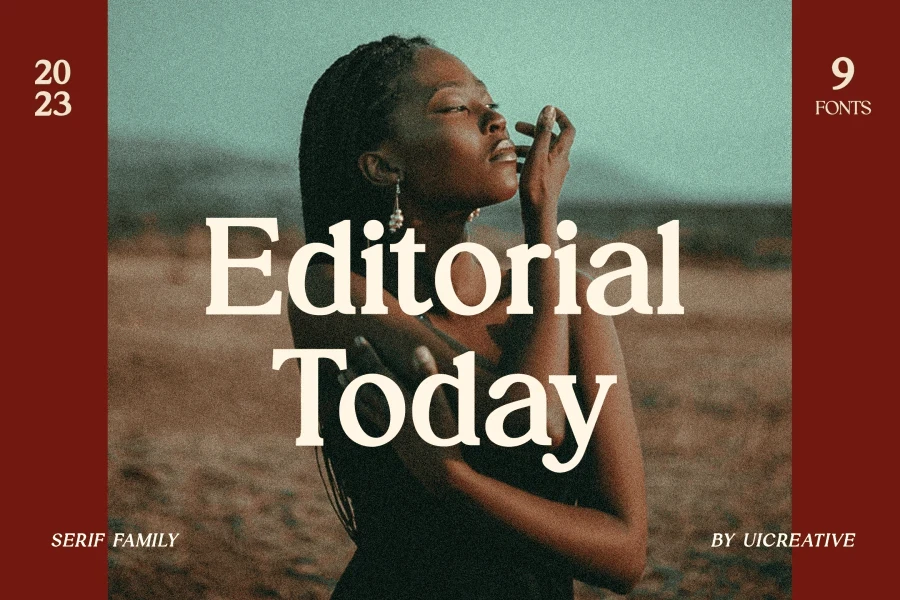
3. Lusio Soft Font: Rounded Sans Serif Family
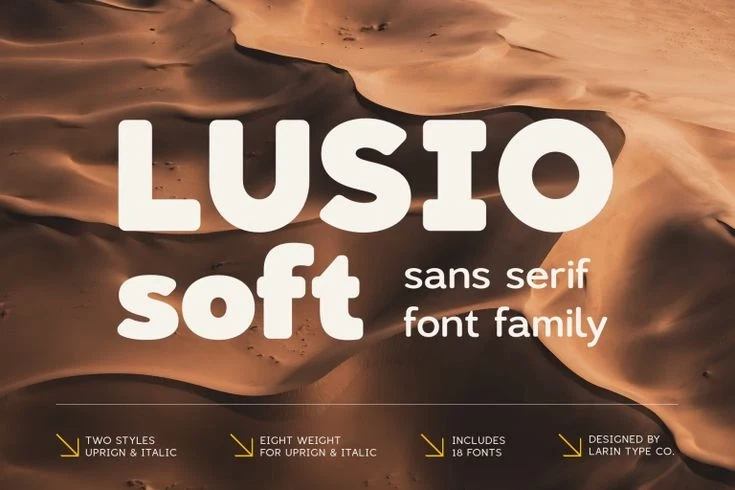
4. Modestic Display Bold Font
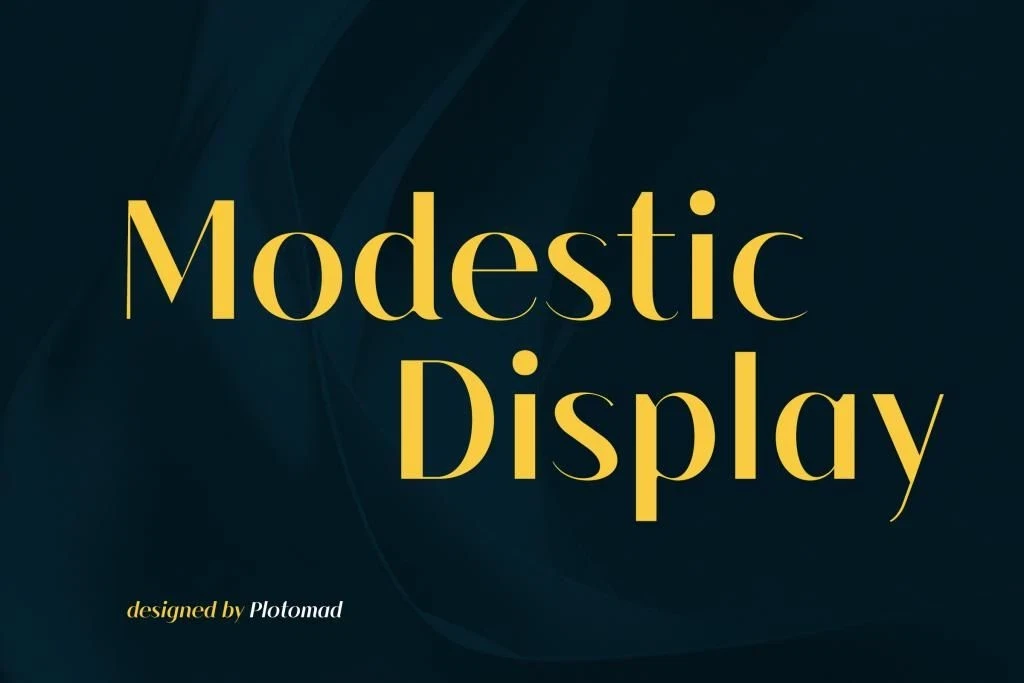
5. Abind Font – Elegant Serif for Logos, Branding & Packaging
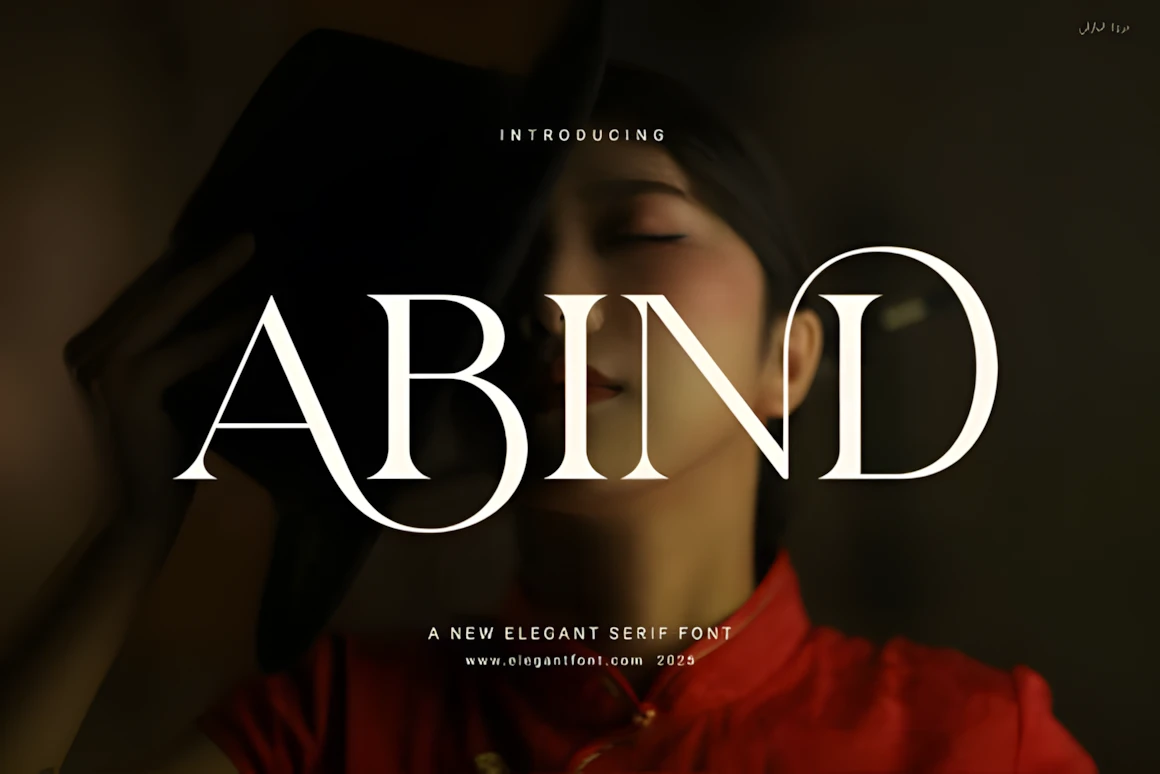
6. Goodly Font – Friendly Modern Rounded Sans Serif Typeface
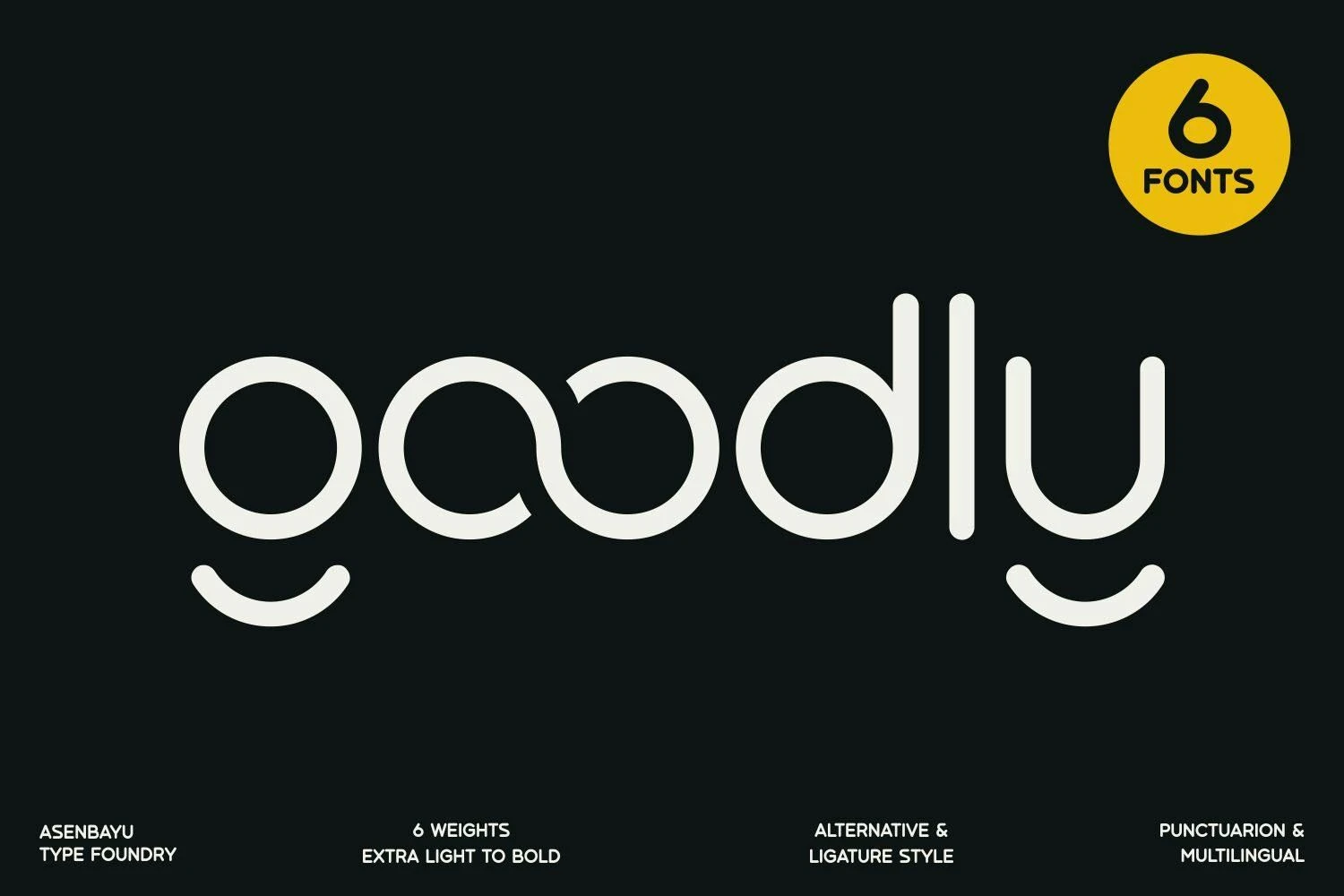
7. Amore Dreaming Font Duo – Elegant Script & Sans Serif Typeface
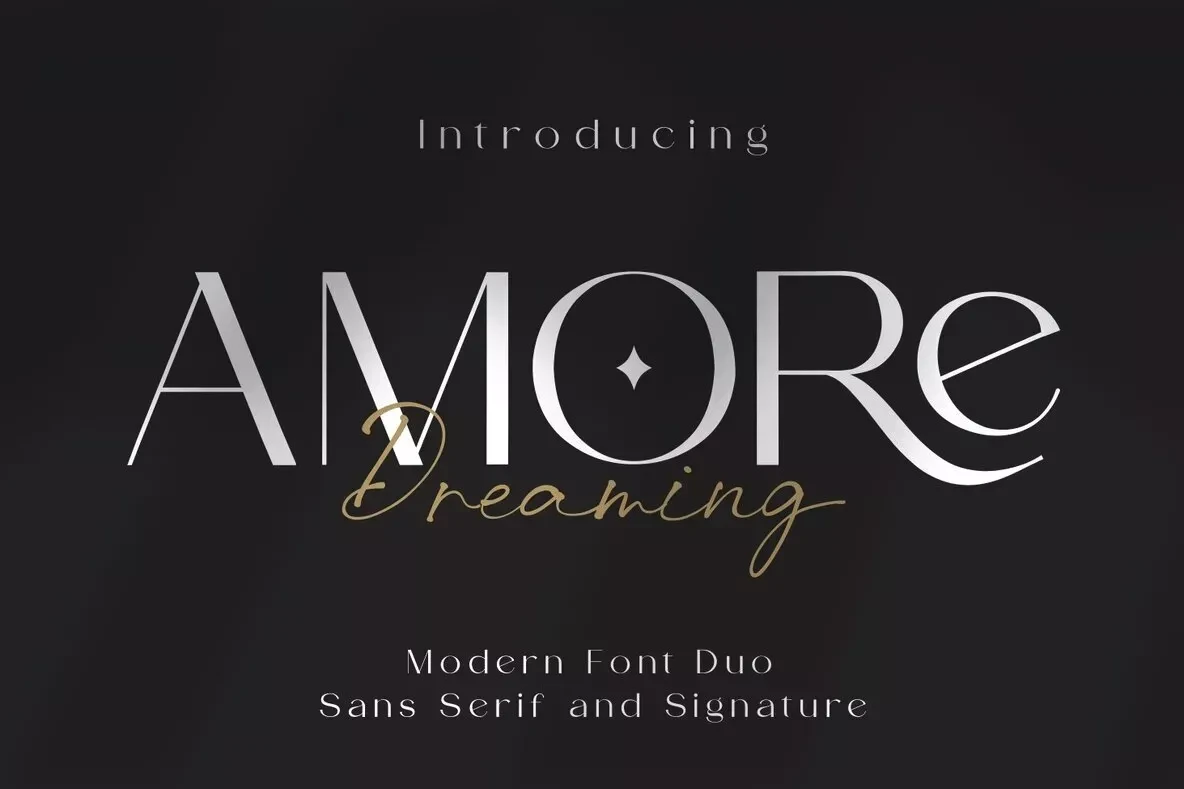
8. Melbourne Font – Modern Geometric Sans Serif Family (12 Styles)
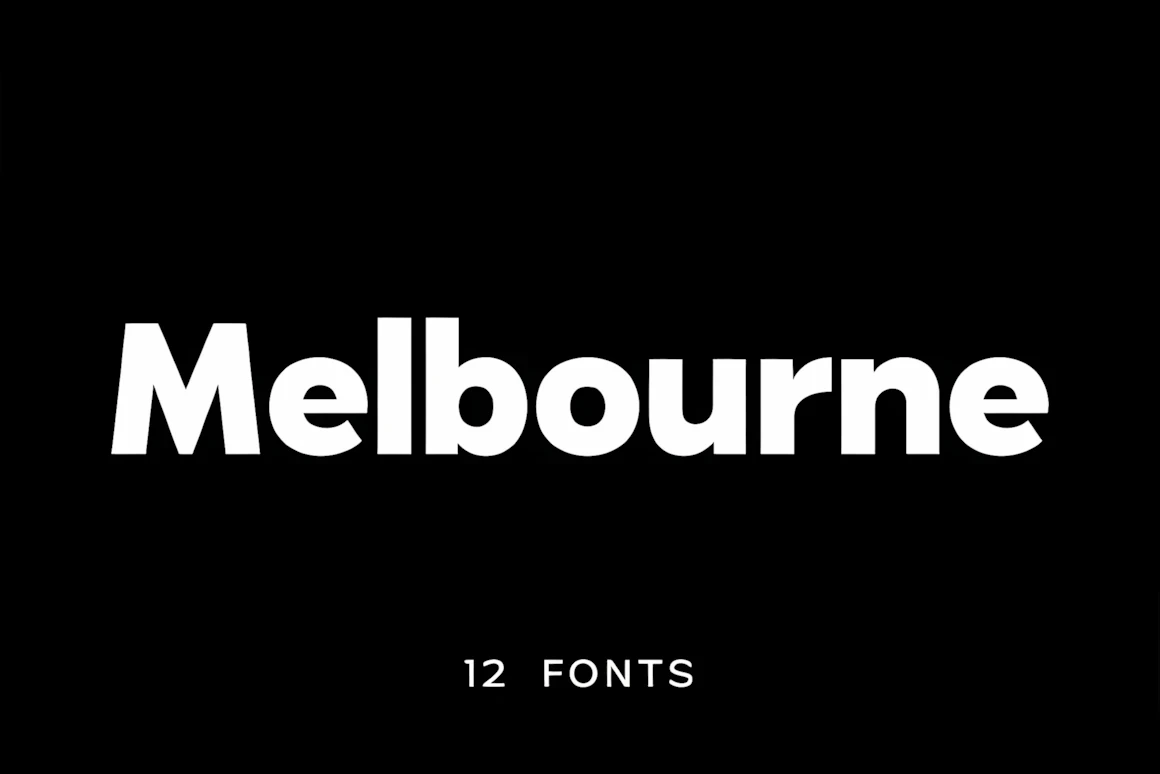
9. Black Mollta Font – High-Contrast Serif Typeface (Regular + Oblique)
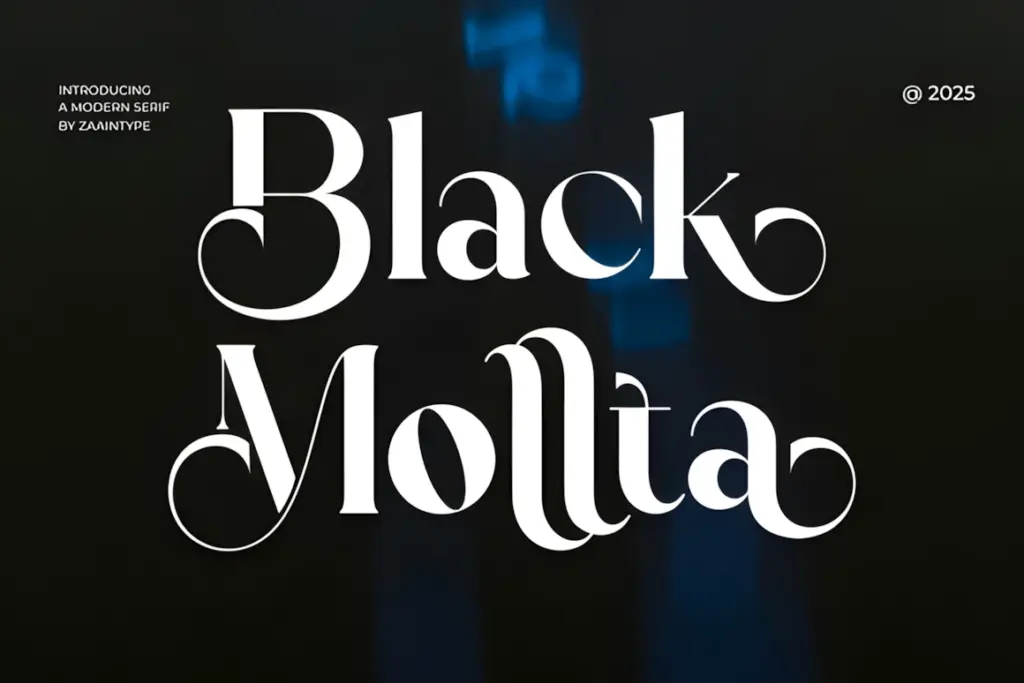
10. Edigo Font – Modern Retro Display Typeface for Logos, Headlines & Posters
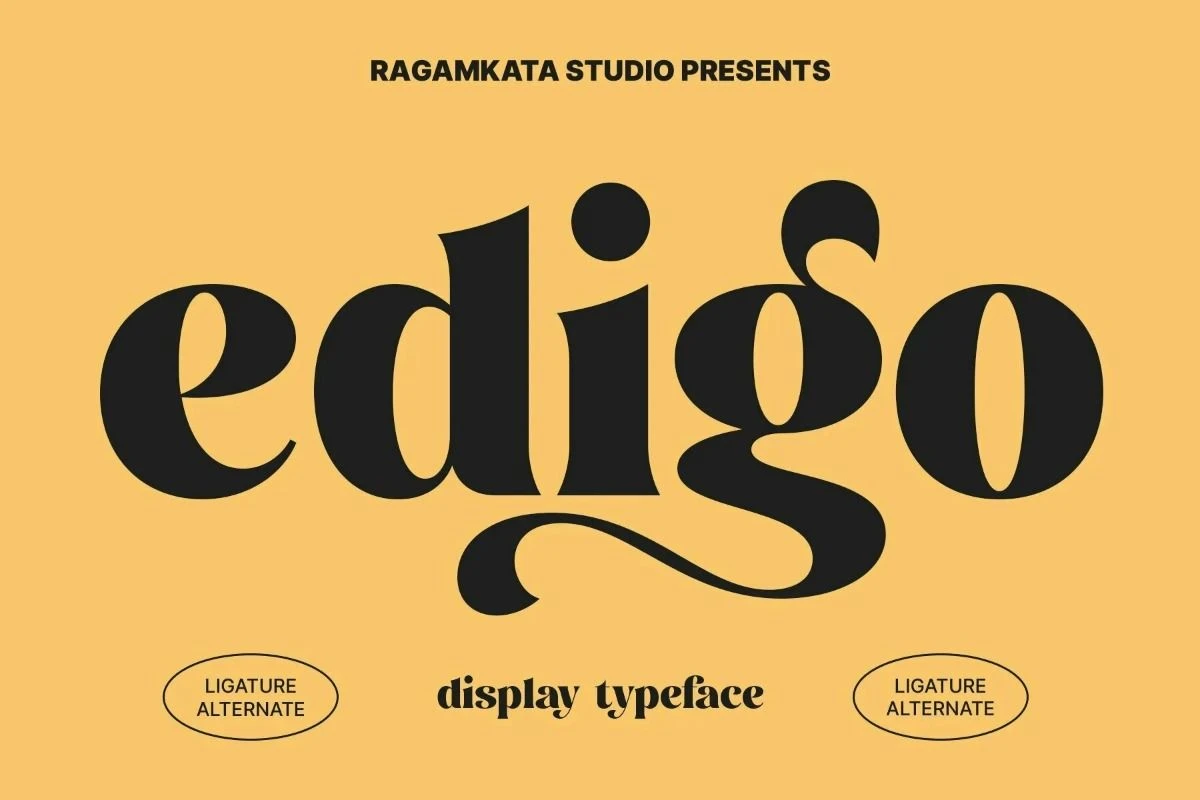
11. Scandya Script Font – Brush Handwritten Typeface with Alternates & Ligatures
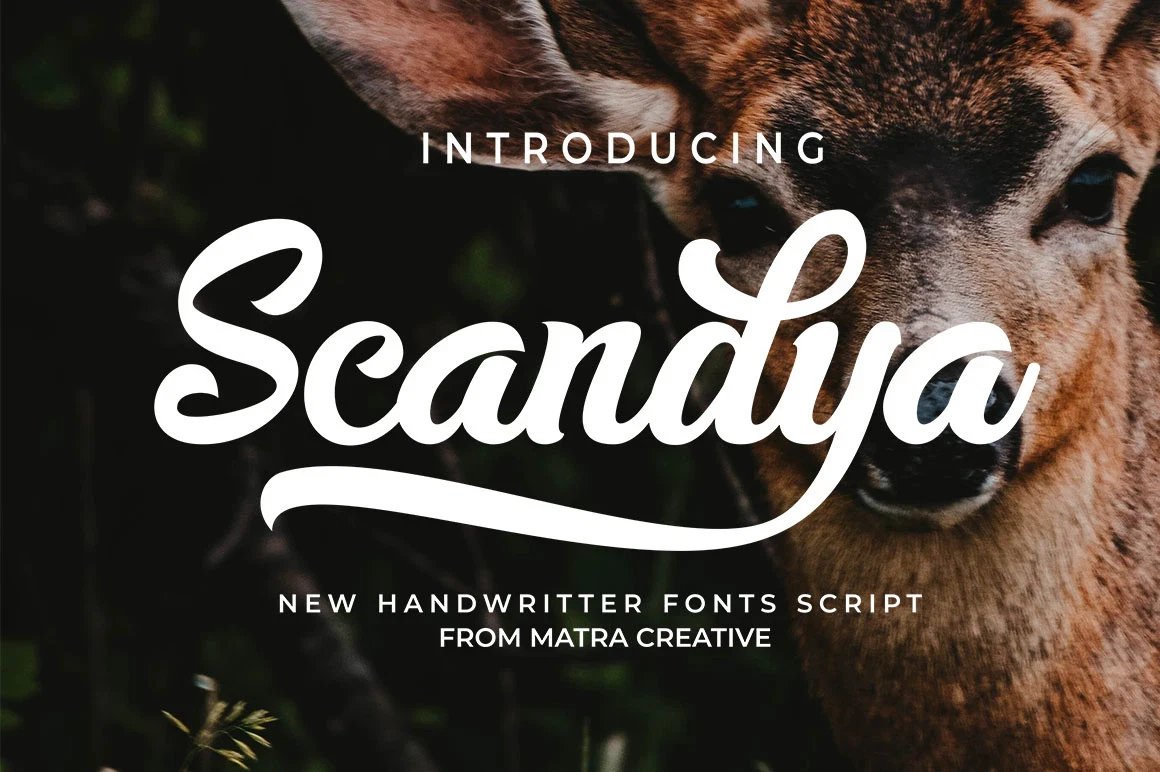
12. Brefid Font – Luxury Elegant Display Serif Typeface with Ligatures & Alternates
13. Informe Font – Modern Monospaced Sans Serif Typeface for UI, Coding & Labels
14. Sunday Fatso Font – Chunky Rounded Serif Display Typeface (PUA + Alternates)
15. Grisy & Rocky Font – Condensed Bold Sans Serif Urban Display Typeface
Before You Choose Fonts: 3 Things That Save You Hours
1) Decide what your website headline needs to do
A headline font has a job: it grabs attention and sets the brand tone. Ask:
- Should it feel premium or playful?
- Should it feel bold (high contrast) or quiet (minimal)?
- Should it feel human (soft) or technical (sharp)?
This decision prevents you from downloading 30 fonts “just to test.”
2) Use the “Two-Layer” typography system (works for 90% of sites)
For modern websites, this is the simplest system that looks professional:
- Display font (for H1 / H2 headlines)
- Neutral body font (for paragraphs, UI labels)
Optional:
- Accent font (script/handwritten) for small highlights only
This keeps your site clean and scalable, especially on mobile.
3) Test fonts in real content, not in “Lorem Ipsum”
A font may look gorgeous in a mockup but fail in real headlines (like product features or blog titles). Always test:
- A long headline (8–12 words)
- A short headline (3–4 words)
- A paragraph (3–4 lines)
- A CTA button (“Get started”, “Book a call”)
If it passes all four, the font is usable.
What Makes a Pairing Feel “Modern” in 2026?
In 2025, modern typography trends lean into:
- High readability (strong x-height, clean spacing)
- Editorial contrast (serif + sans, but controlled)
- Soft minimalism (rounded sans or calm grotesks)
- Less “cute script,” more “signature accent” (small doses)
- Bold display fonts for hero sections (but paired with neutral body text)
Also: modern websites now need fonts that work across web, social, and video thumbnails. That’s why pairing sets below include use cases.
One Practical Pairing Formula You Can Reuse (Fast)
If you’re stuck, use this formula:
- Headline: one strong “personality font” (serif OR display sans)
- Body: one neutral “workhorse font” (clean sans)
- Accent: optional script/handwritten, but only for small moments
This builds modern typography that feels intentional—even if you don’t have time to overthink
In 2025, great typography balances clarity, feeling, and results. Pick a headline font to show personality and a body font that’s easy to read. Test pairings with actual content on phones before deciding. Find sets using keywords and make a reusable kit for web, social, and print.